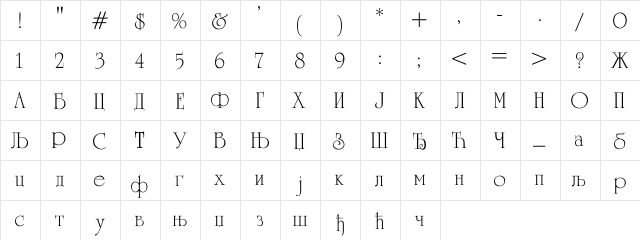
CYUniversityR Regular
CYUniversityR takes a measured approach to typography — its balanced proportions and neutral character make it a reliable workhorse for both digital and print work.